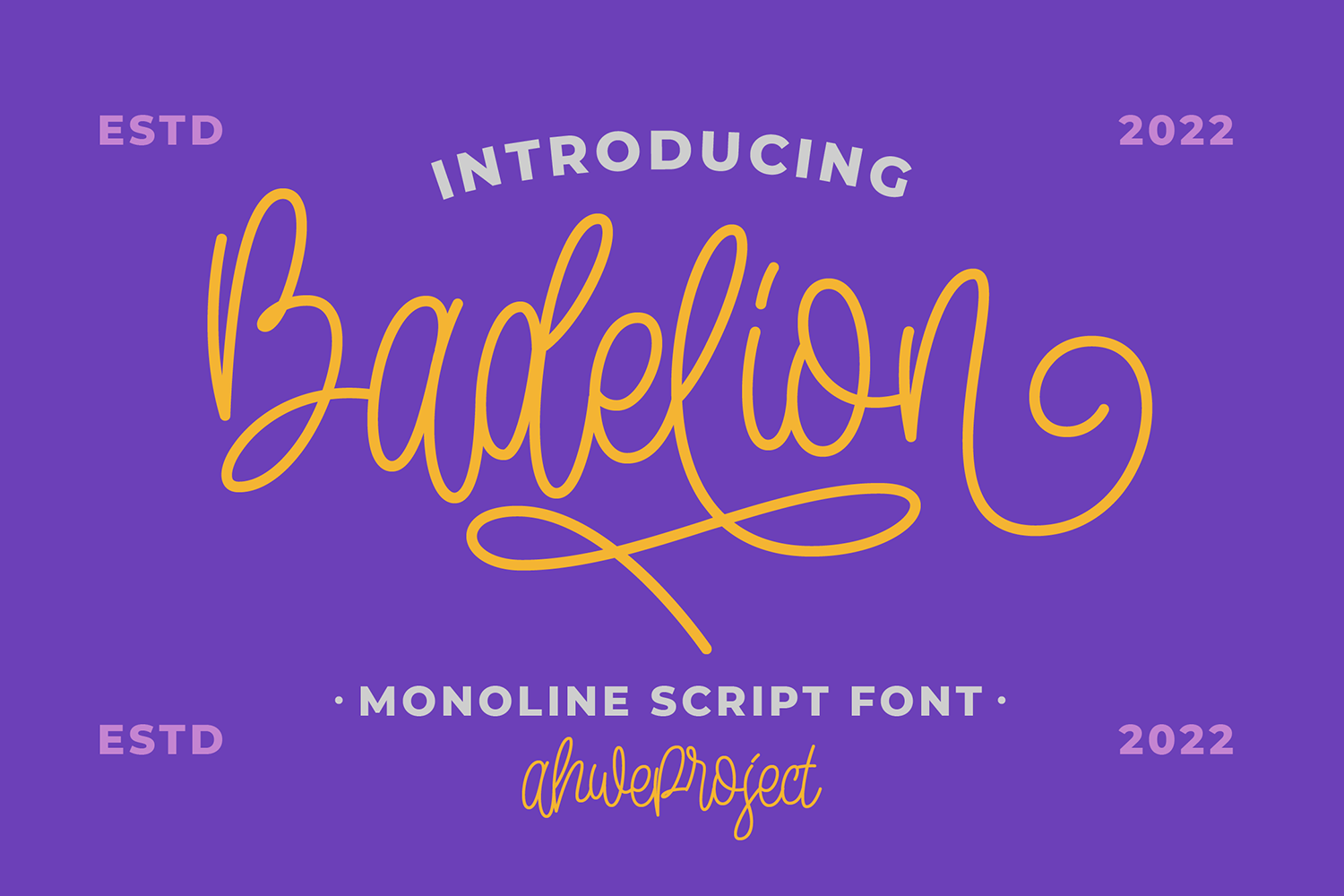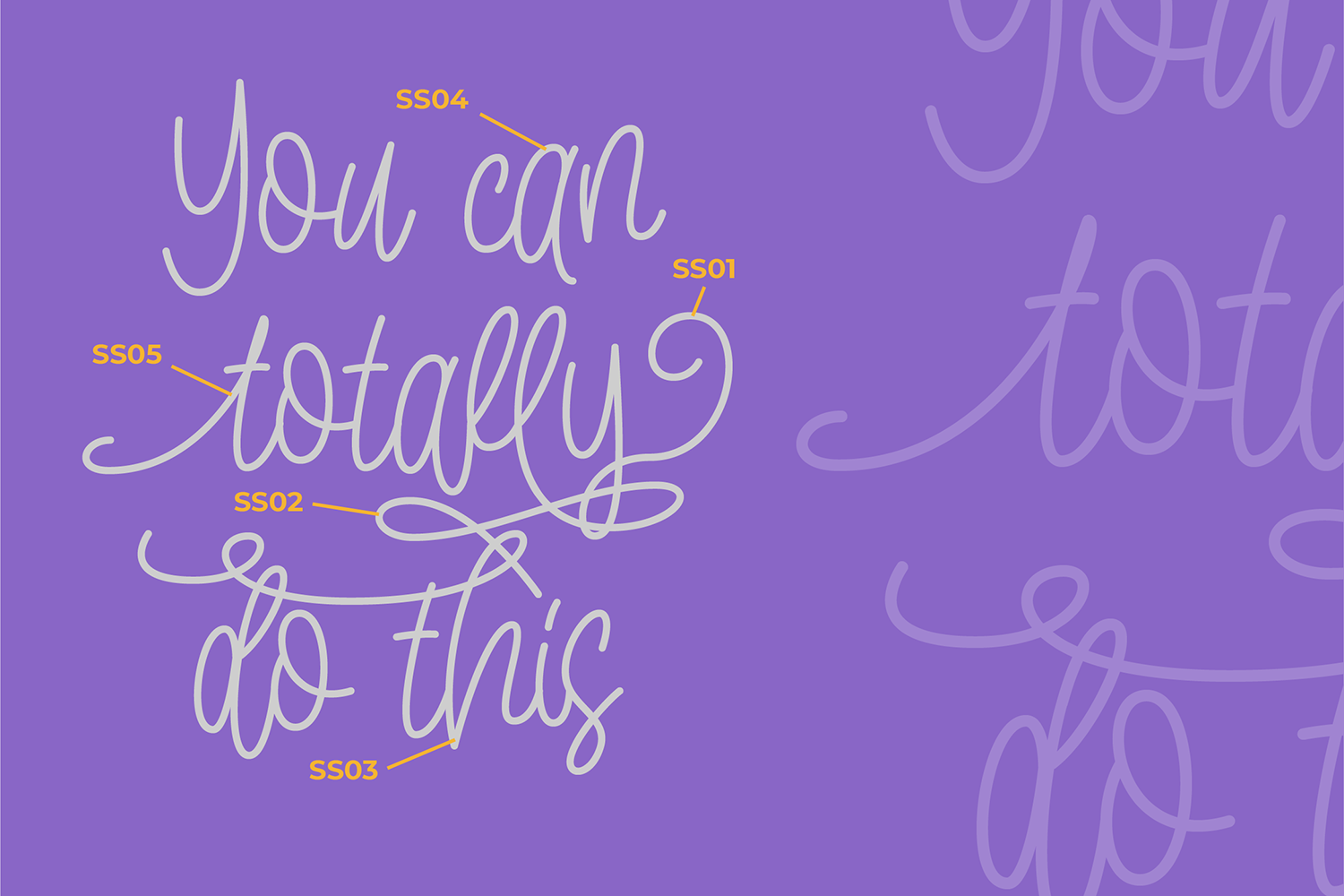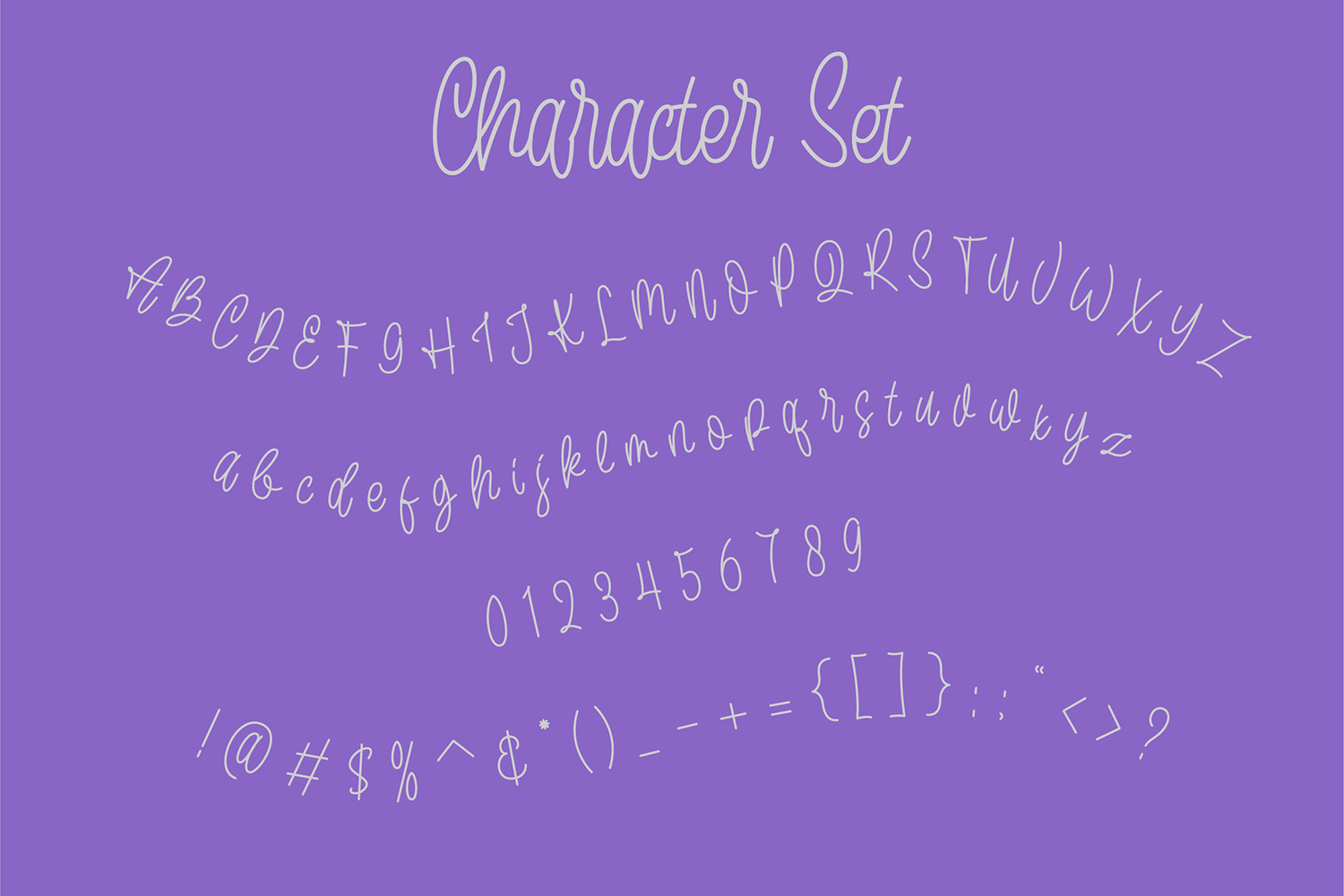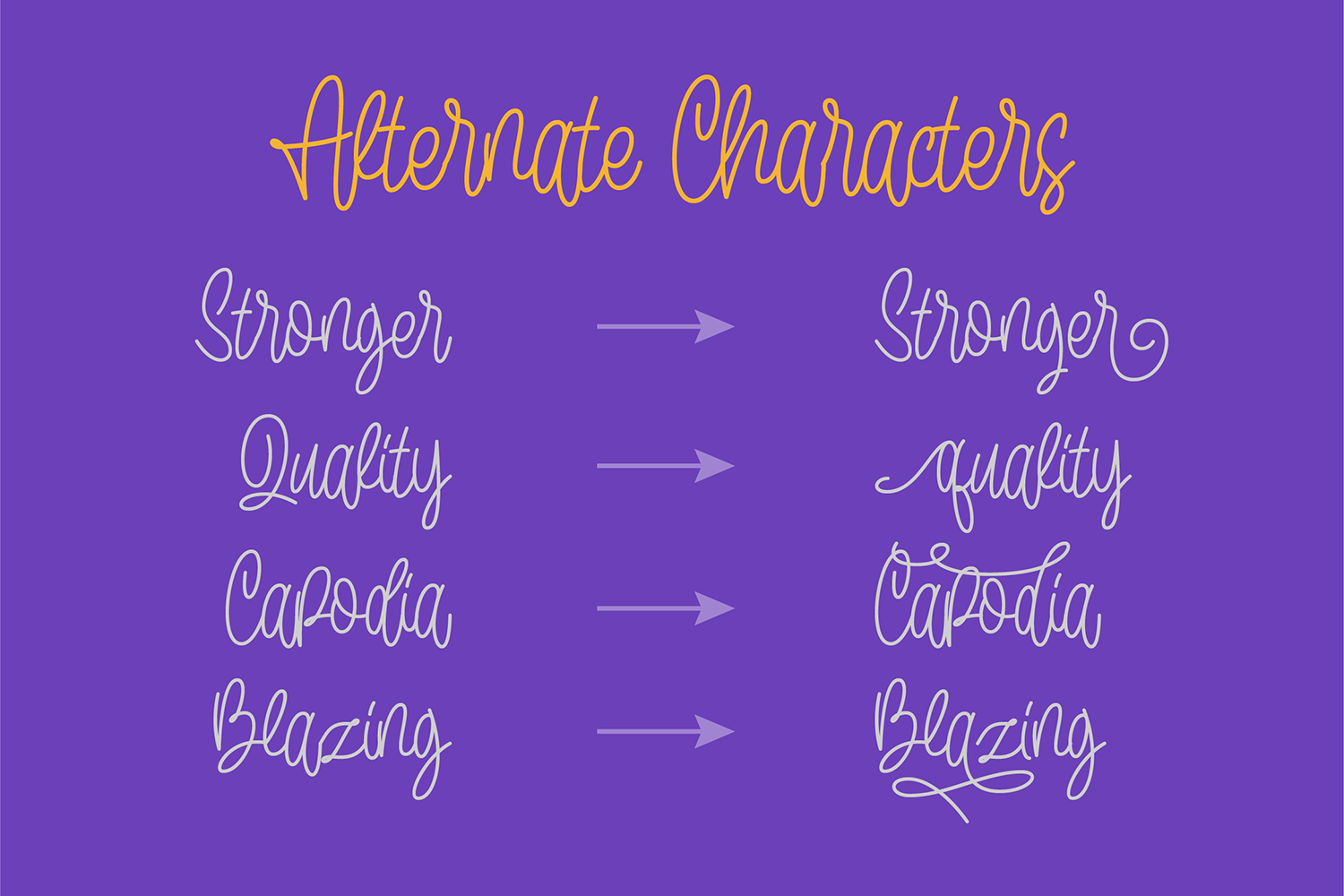
Badelion Free Font
Badelion Free Font is a thin lettered, stylish and delicate script font. This gentle font will look gorgeous on a variety of design ideas. It will add a joyful and romantic touch to each of your projects. This free typeface was designed by a talented Allouse Studio. If you like it don’t forget to check out the full version.